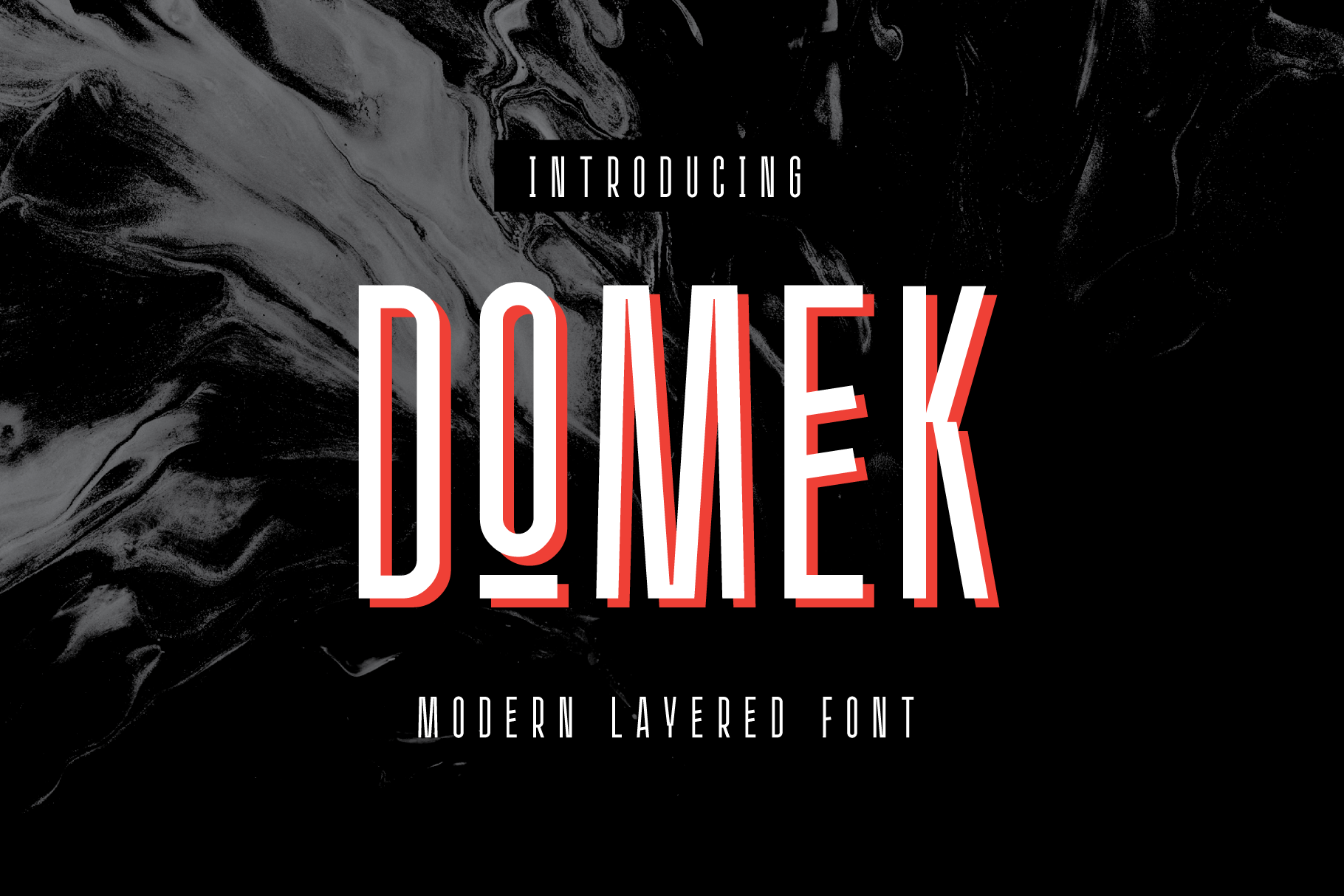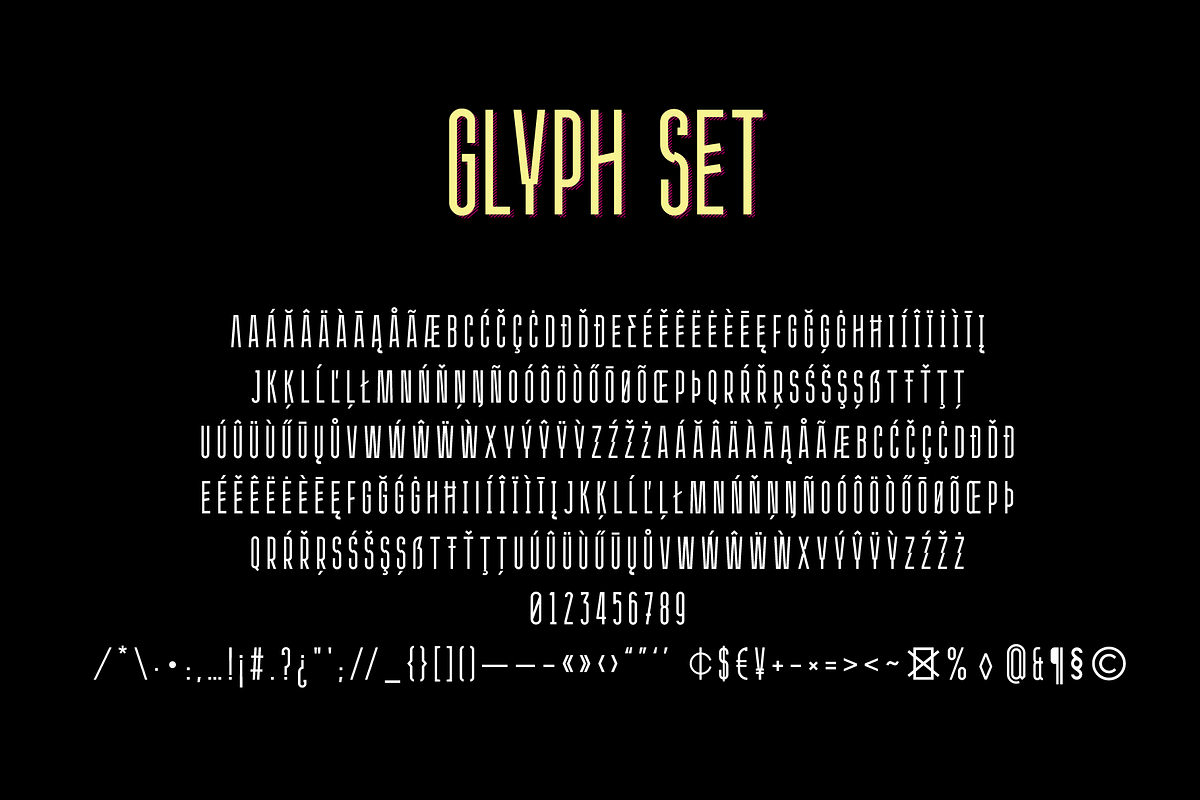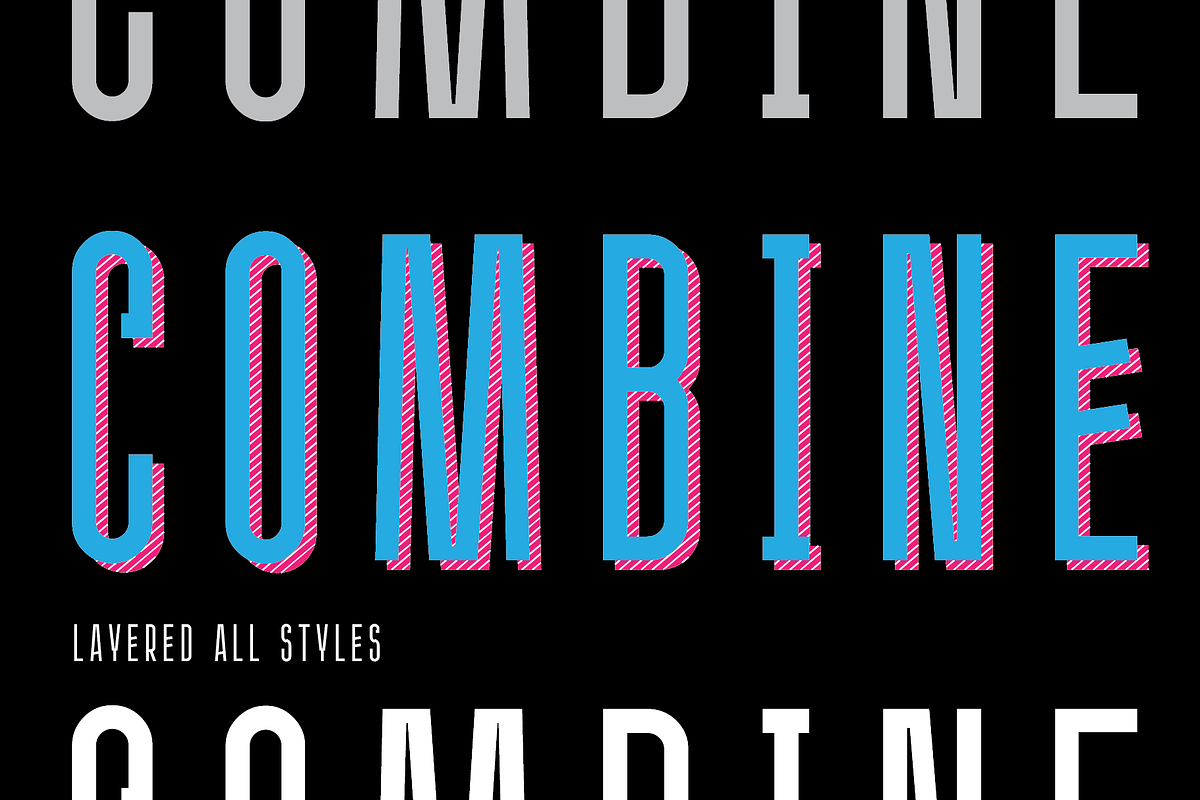
Domek Font | 3 styles
Domek is a tall modern typeface.
Includes 3 styles (Regular, Shadow, Halftone shadow), you can combine layers to make effects.
Some stylistic alternates
Extended latin glyph set
This fonts are perfect for : logo design, headers, posters, packaging designs and more.